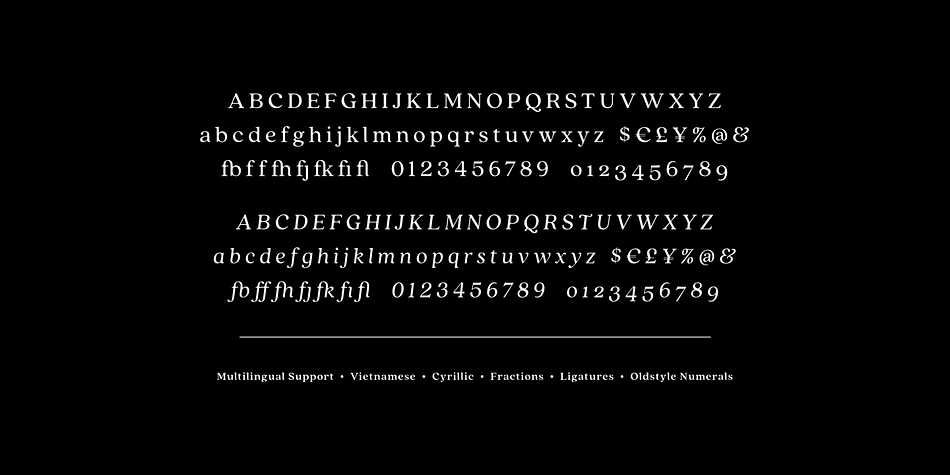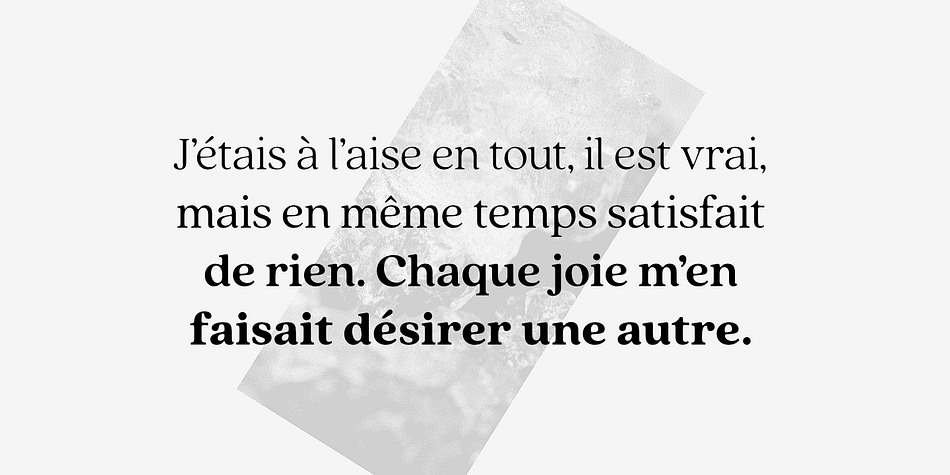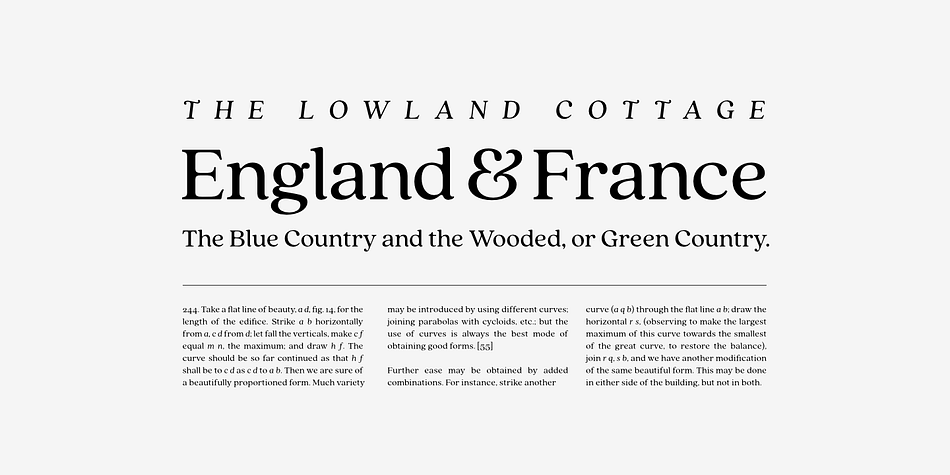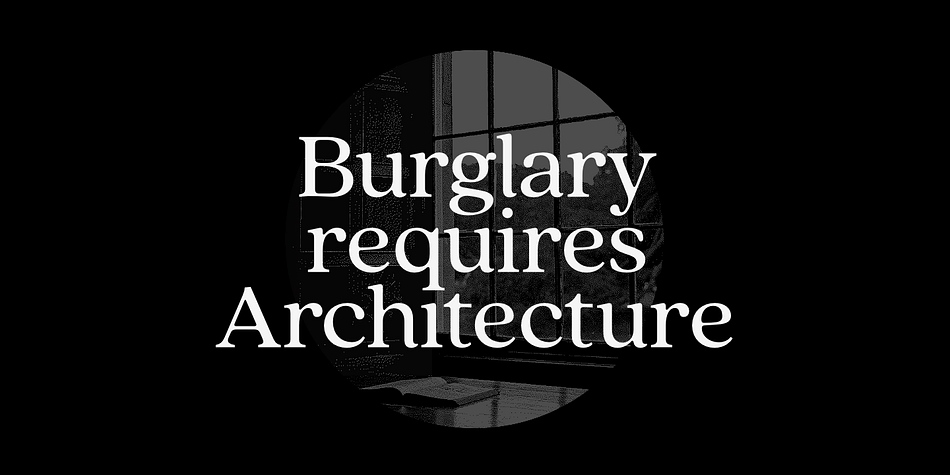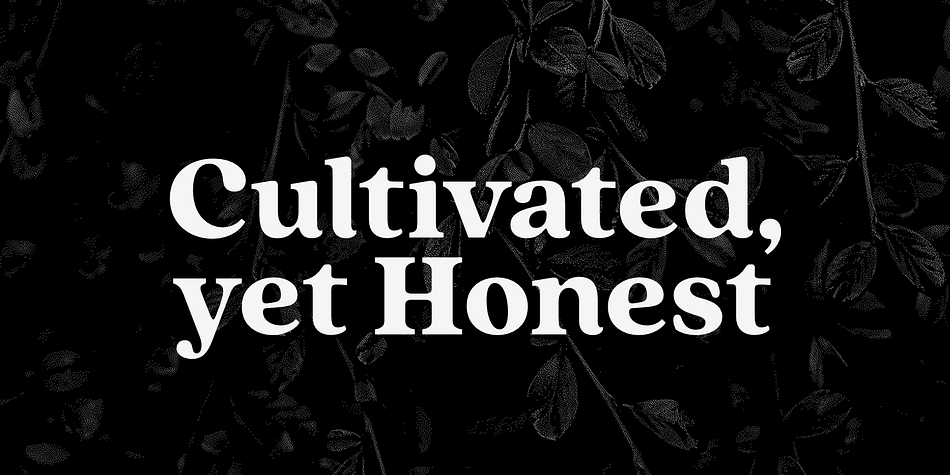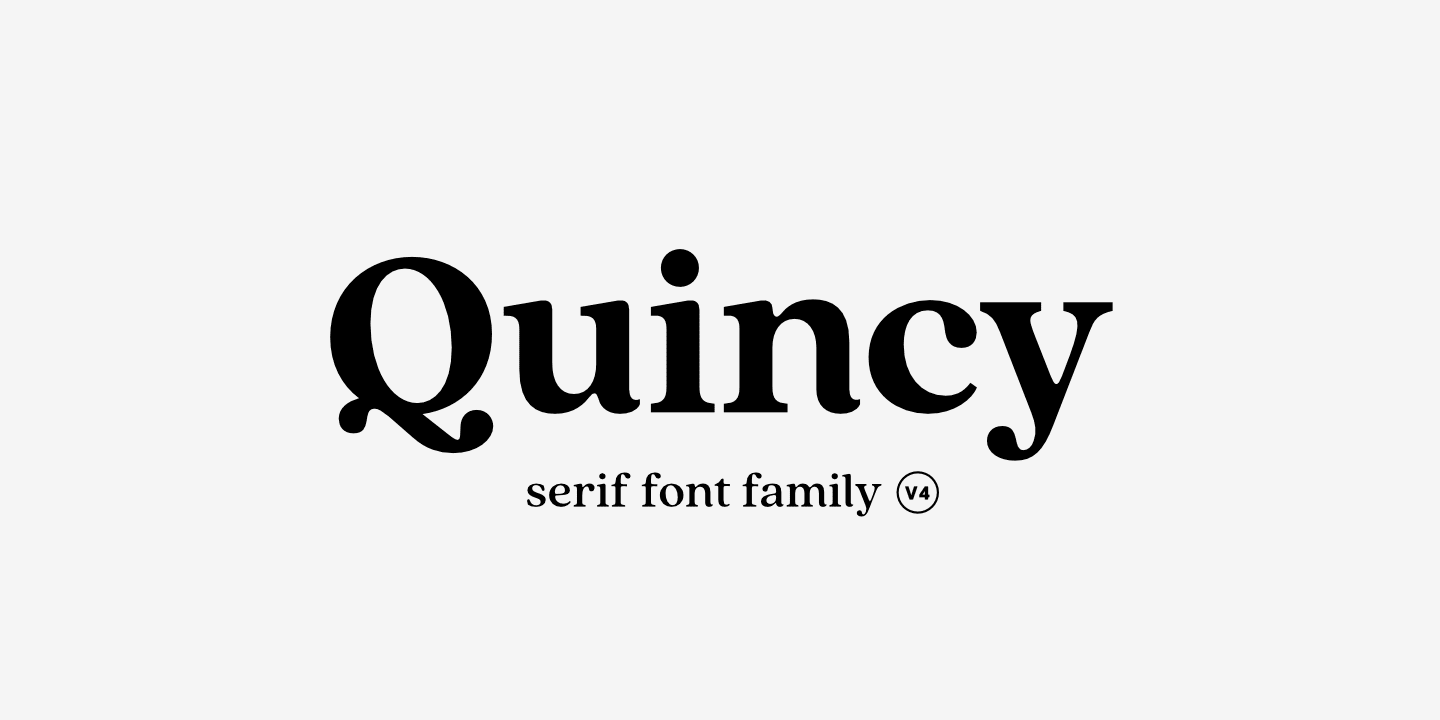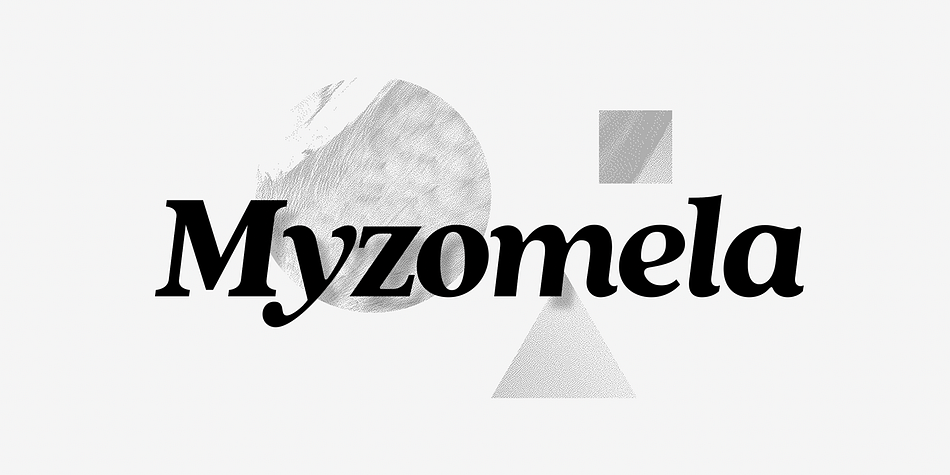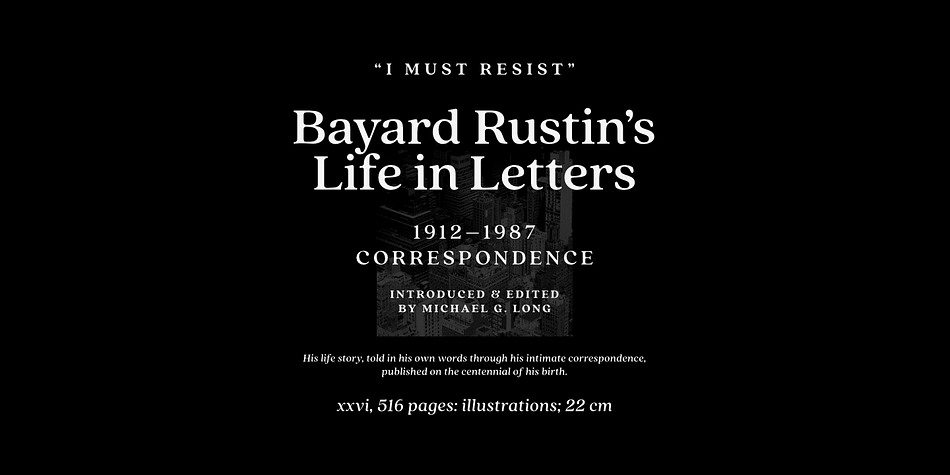
Quincy CF is a serif font family. This typeface has sixteen styles and was published by Connary Fagen Type Design.
The warm letterforms and medium contrast of Quincy© CF give any text a smooth, flowing motion. Small variations and human touches add charm, with Quincy’s boldest weights especially strong as large and medium display type.